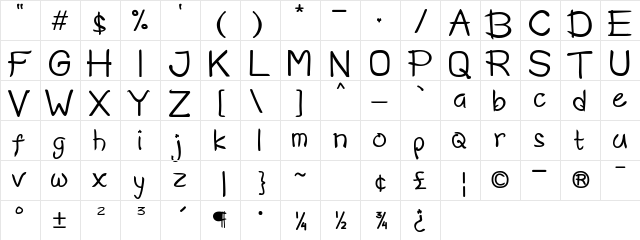
banana super Regular
Design Context for banana super Typeface
banana super takes a measured approach to typography — its balanced proportions and neutral character make it a reliable workhorse for both digital and print work.